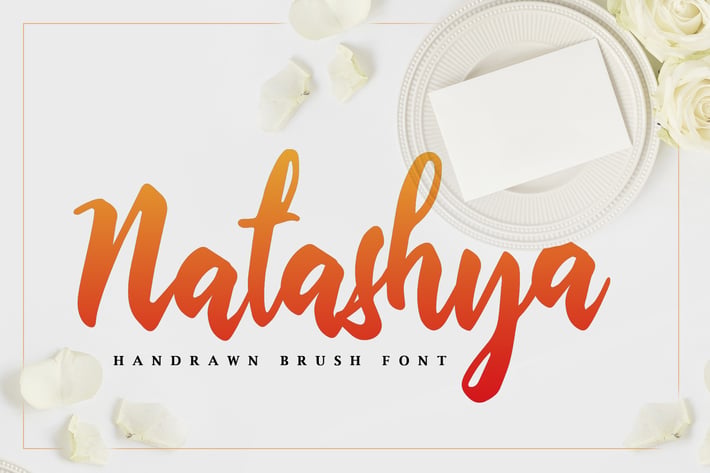
Natashya - Hand-drawn Brush Font
Natashya is perfect to use for Logotype, Letterhead, Poster, Apparel Design, Label and etc.
The alternative characters were divided into several features such as Stylistic Alternates and Ligature.
- All Alternates
- Standard Ligatures